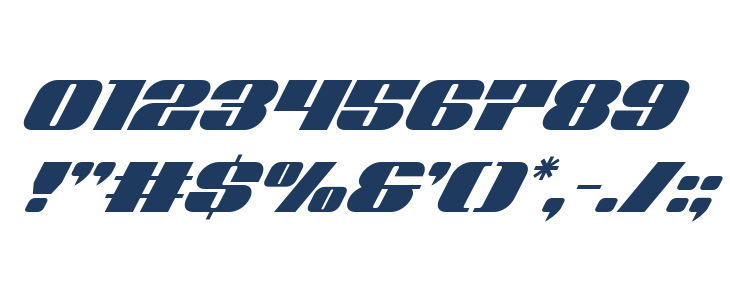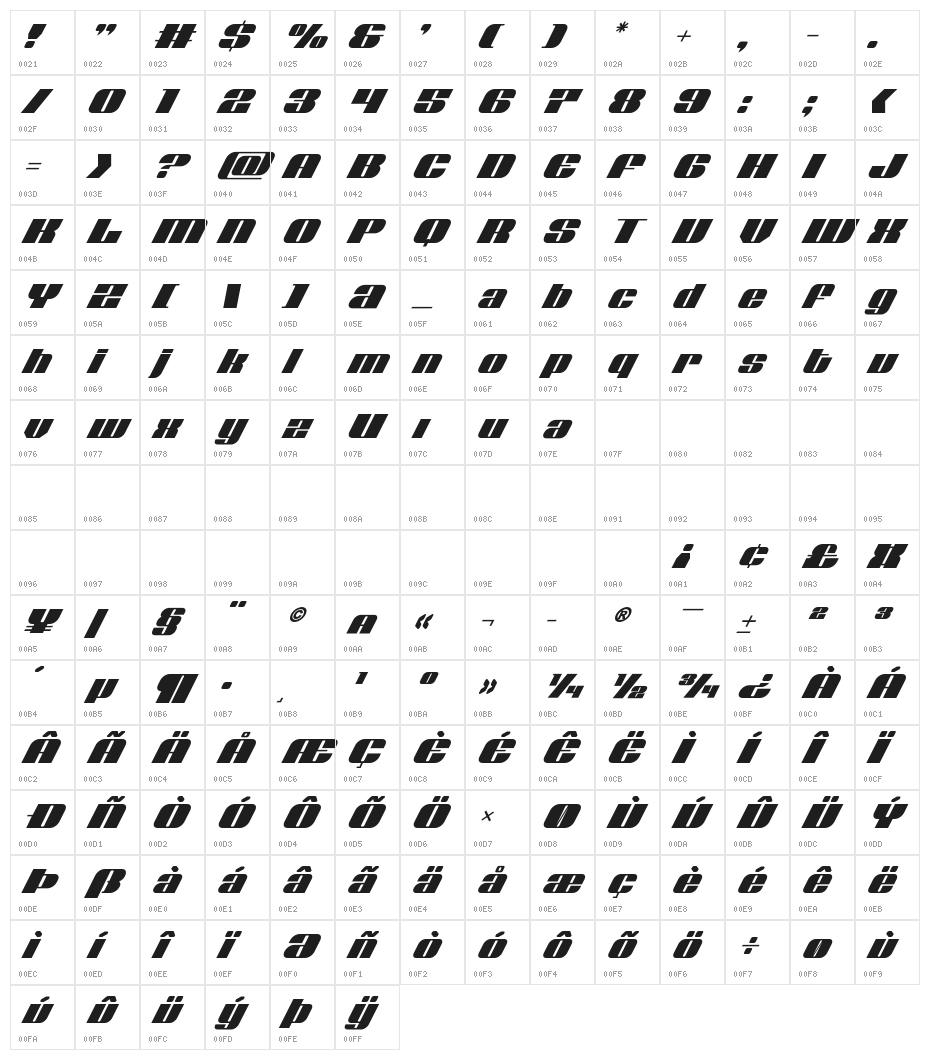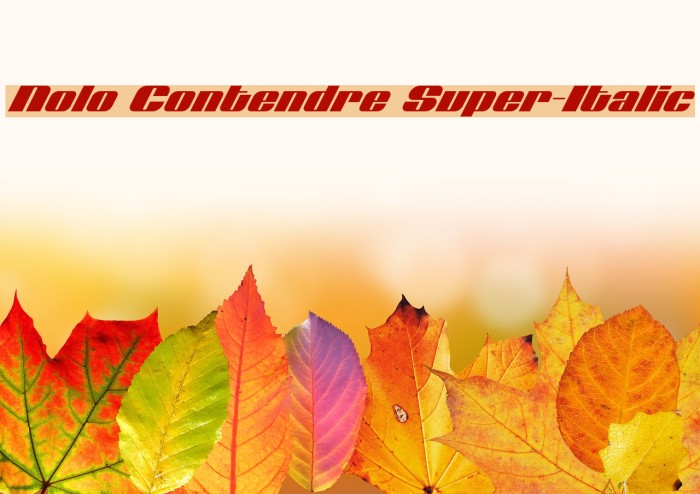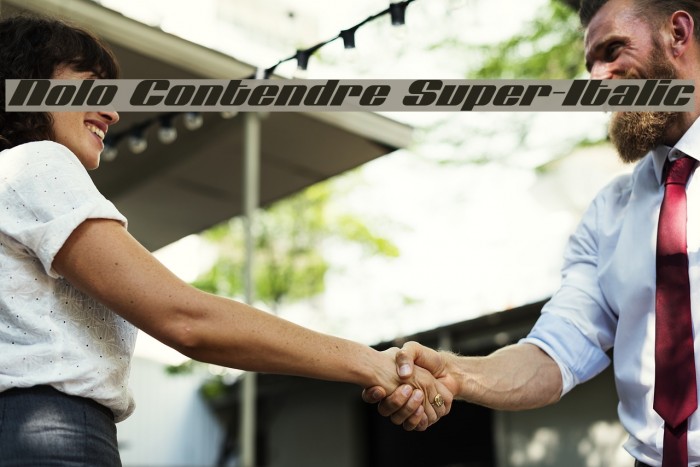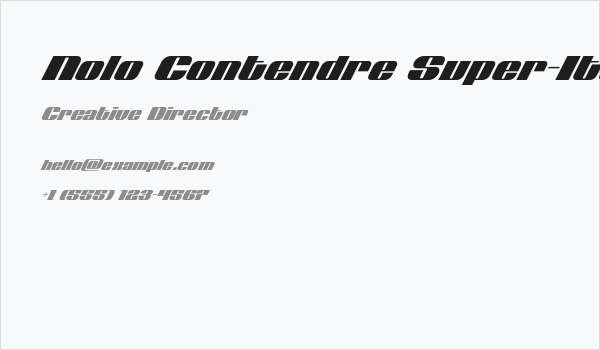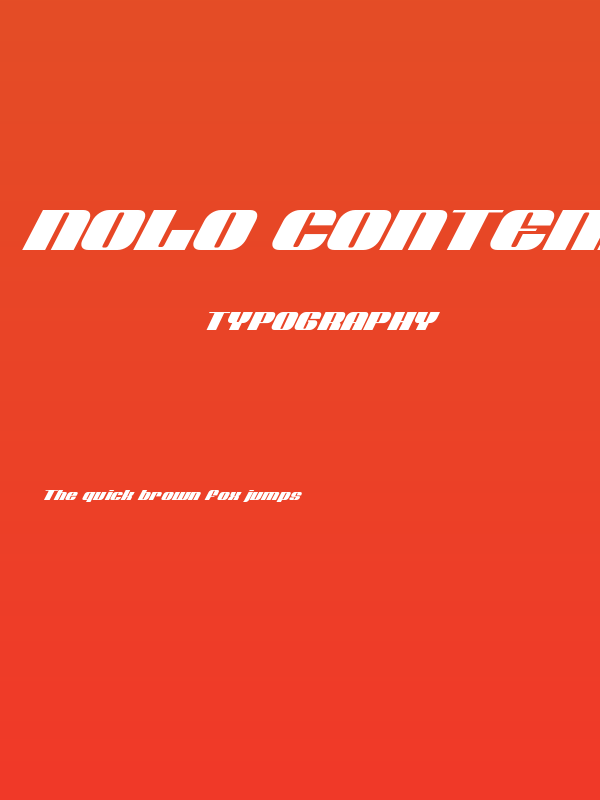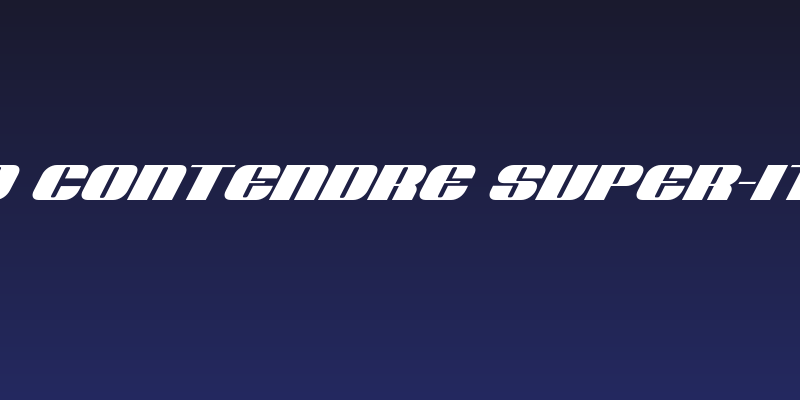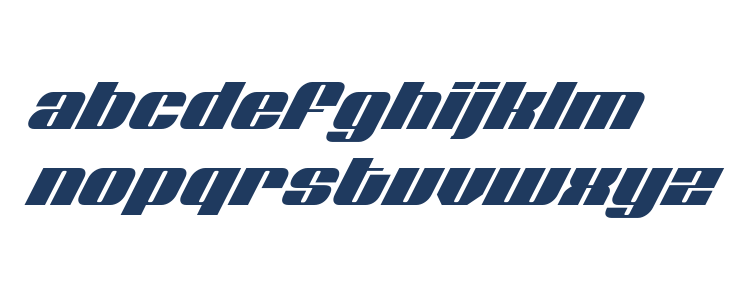
Nolo Contendre Super-Italic Font
Nolo Contendre Super-Italic Description
This font features a bold and dynamic italic style with a strong slant, giving it a sense of motion and energy. The characters are wide and have a distinct geometric structure, with sharp angles and clean lines. The uppercase and lowercase letters maintain a consistent style, while the numerals and special characters complement the overall design. The font's boldness and unique style make it stand out, suitable for projects that require a strong visual impact.
Proposed ProjectsIdeal for sports branding, dynamic posters, and modern advertising campaigns.